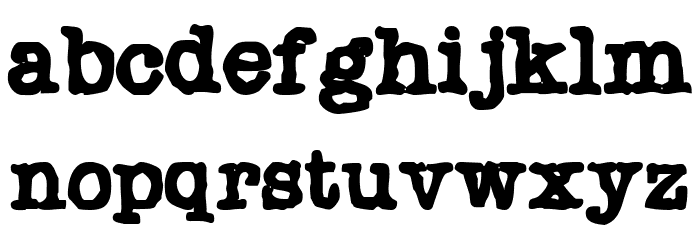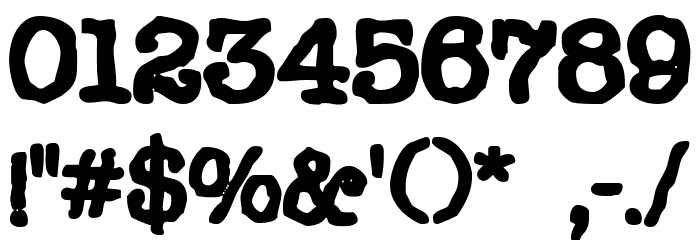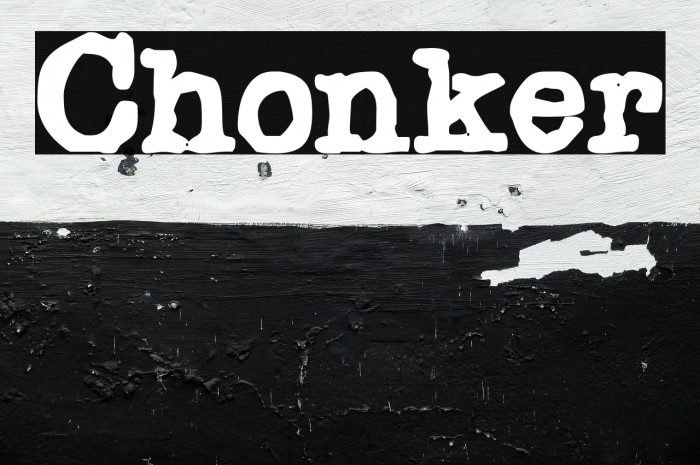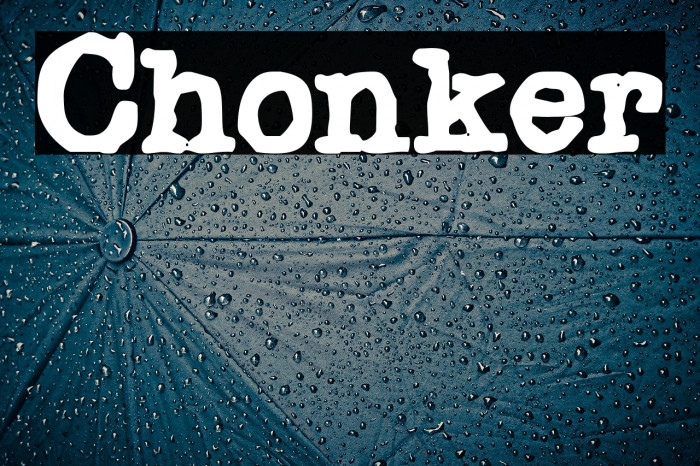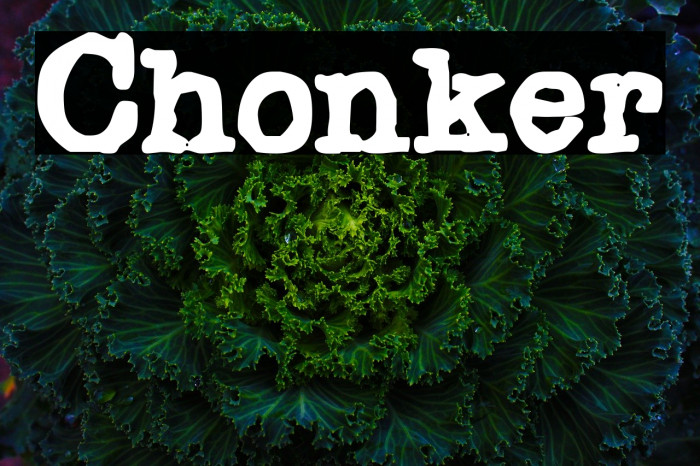
Chonker Font
This font features a bold and playful design with thick, rounded strokes that give it a chunky appearance. The characters are slightly irregular, adding a whimsical and informal touch. The uppercase and lowercase letters maintain a consistent style, with exaggerated serifs and a strong presence. The numbers and special characters follow the same bold and quirky aesthetic, making them stand out. This font is perfect for projects that require a fun and eye-catching look, such as children's books, posters, or playful branding. Its unique style ensures it captures attention while remaining legible.
A bold, playful font with thick, rounded strokes and a whimsical style.
- Proposed Projects: Ideal for children's books, playful posters, and fun branding projects.
- Overall Style: Playful, Whimsical